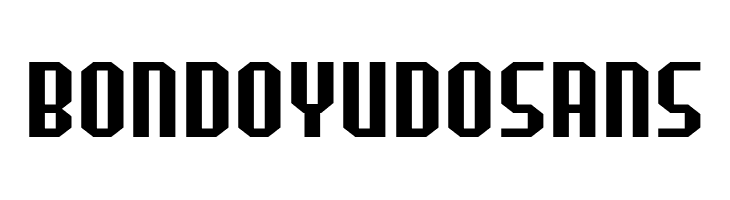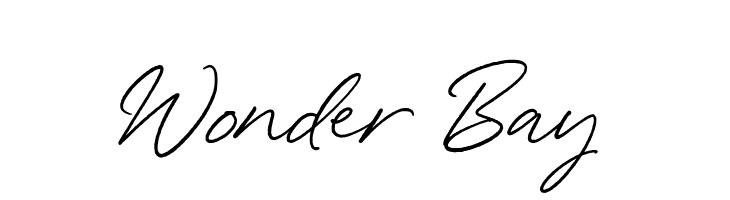
A bold, geometric font with sharp, angular lines and a modern aesthetic.
An elegant script font with flowing, ornate cursive letters and intricate flourishes.
An elegant script font with intricate swirls and flowing lines.
A bold, expressive brush-style font with textured, dynamic strokes.
A bold, italicized sans-serif font with a modern and dynamic style.
A bold, playful font with a hand-drawn, casual style.
A bold, hand-drawn decorative font with textured, sketch-like characters.
A bold, geometric font with a blocky, modern design.
A bold, playful font with a 3D effect and dotted texture.
A bold, expressive handwritten font with a modern, artistic style.